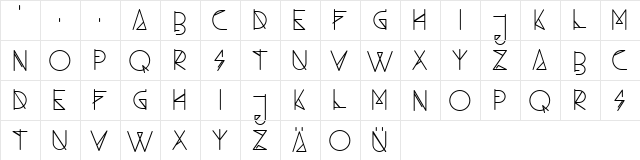
Ambo Thin
Design Context for Ambo Typeface
Ambo is a composed and adaptable typeface that performs quietly and consistently across a wide range of design contexts. The delicate stroke weight brings airiness and refinement to layouts.